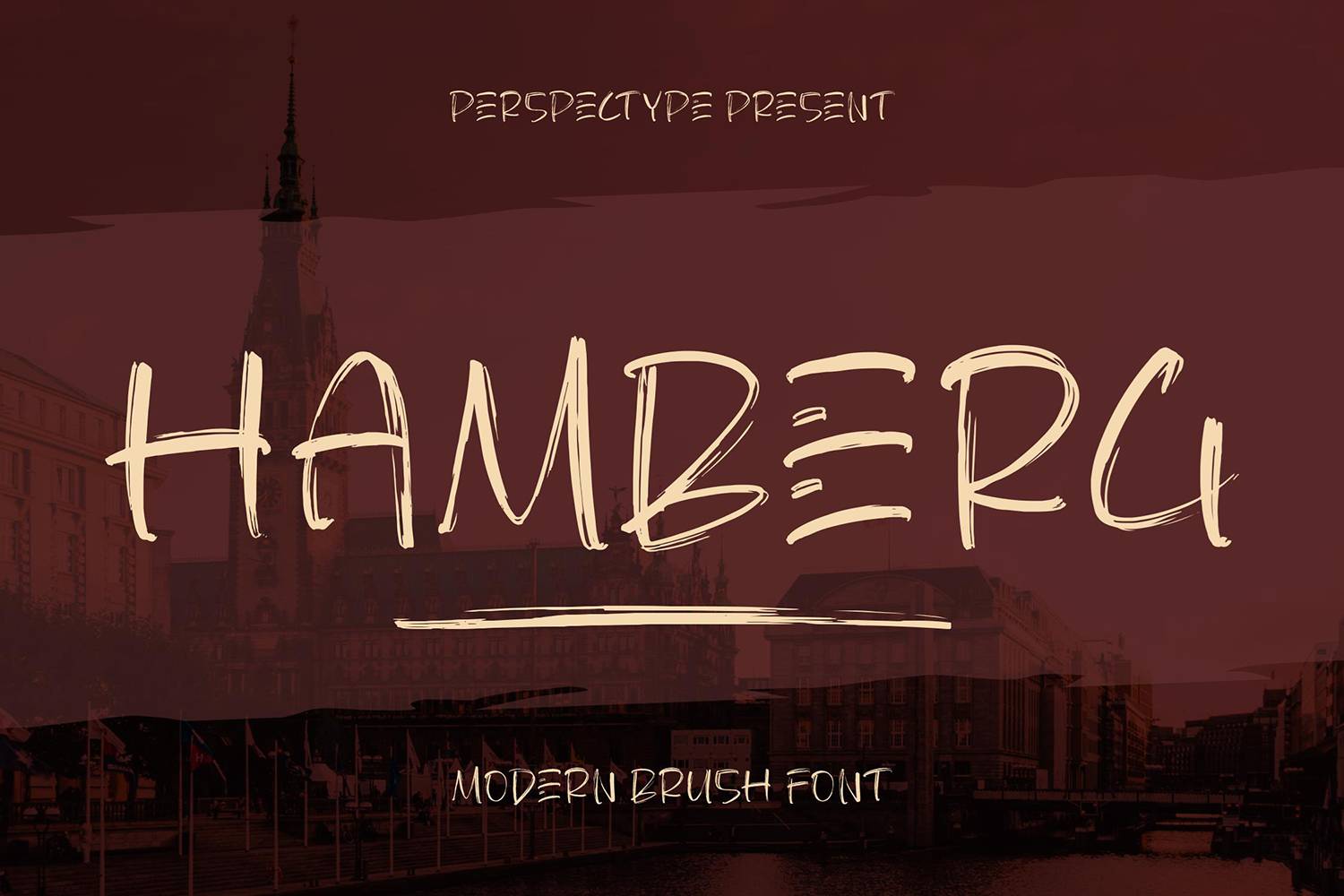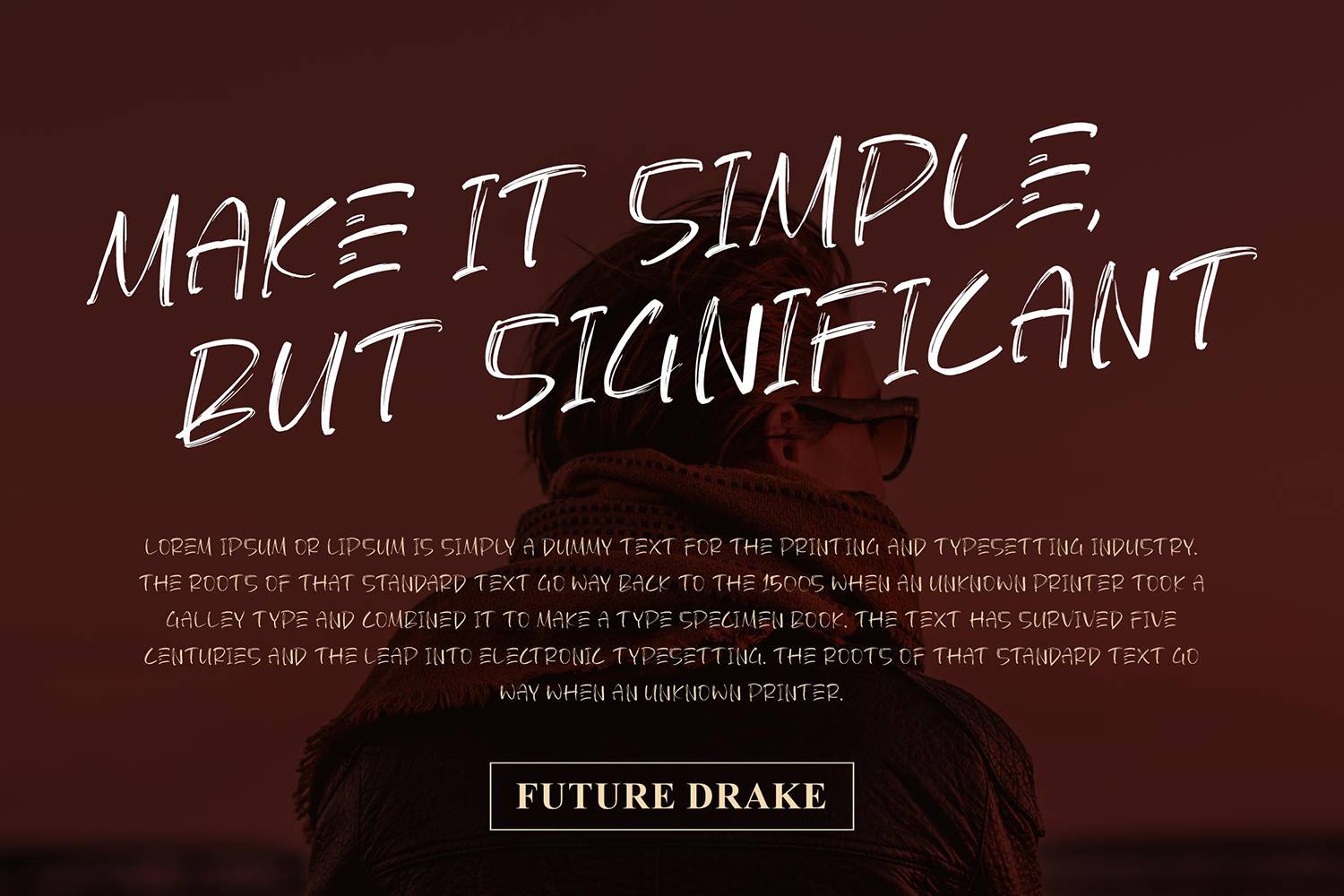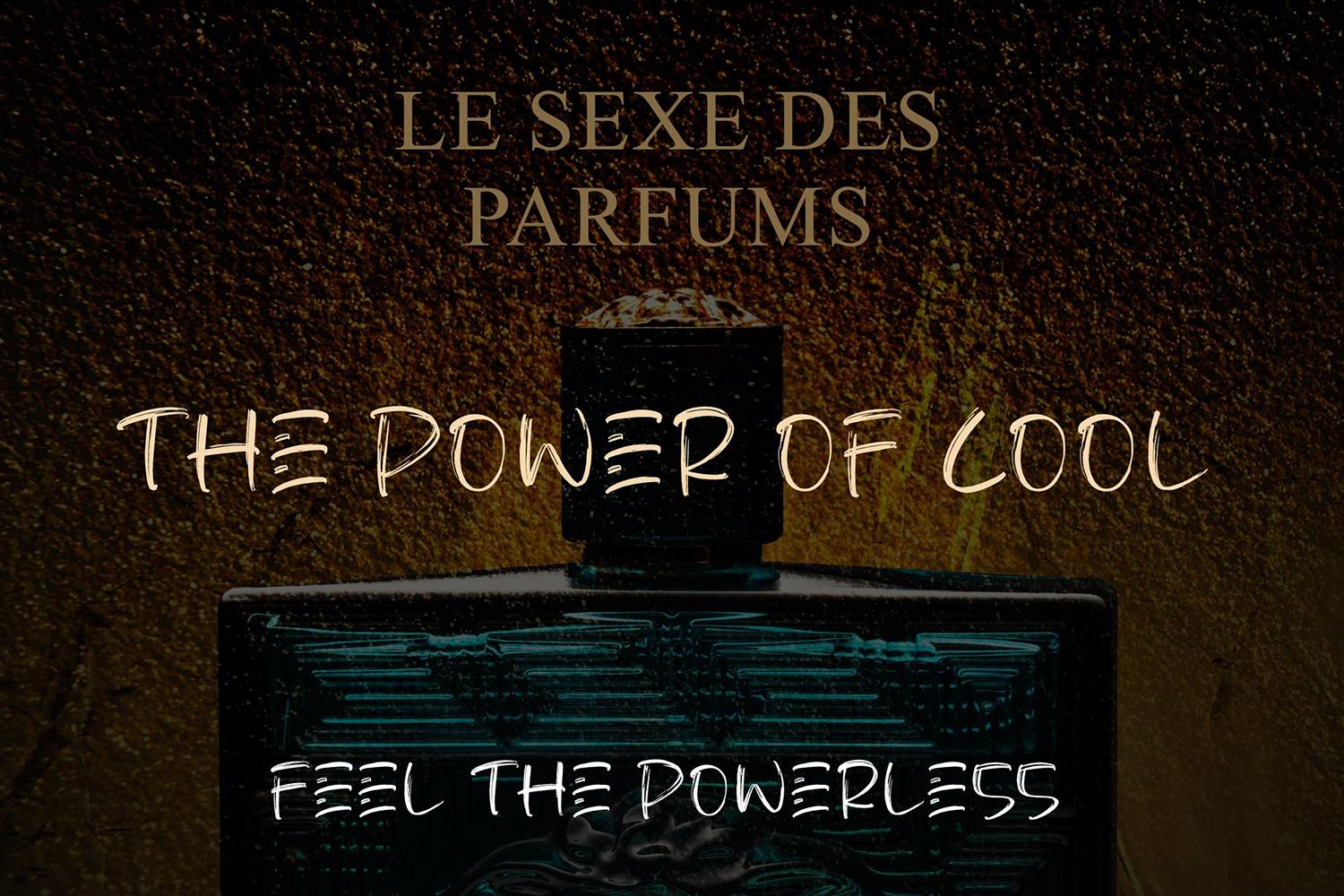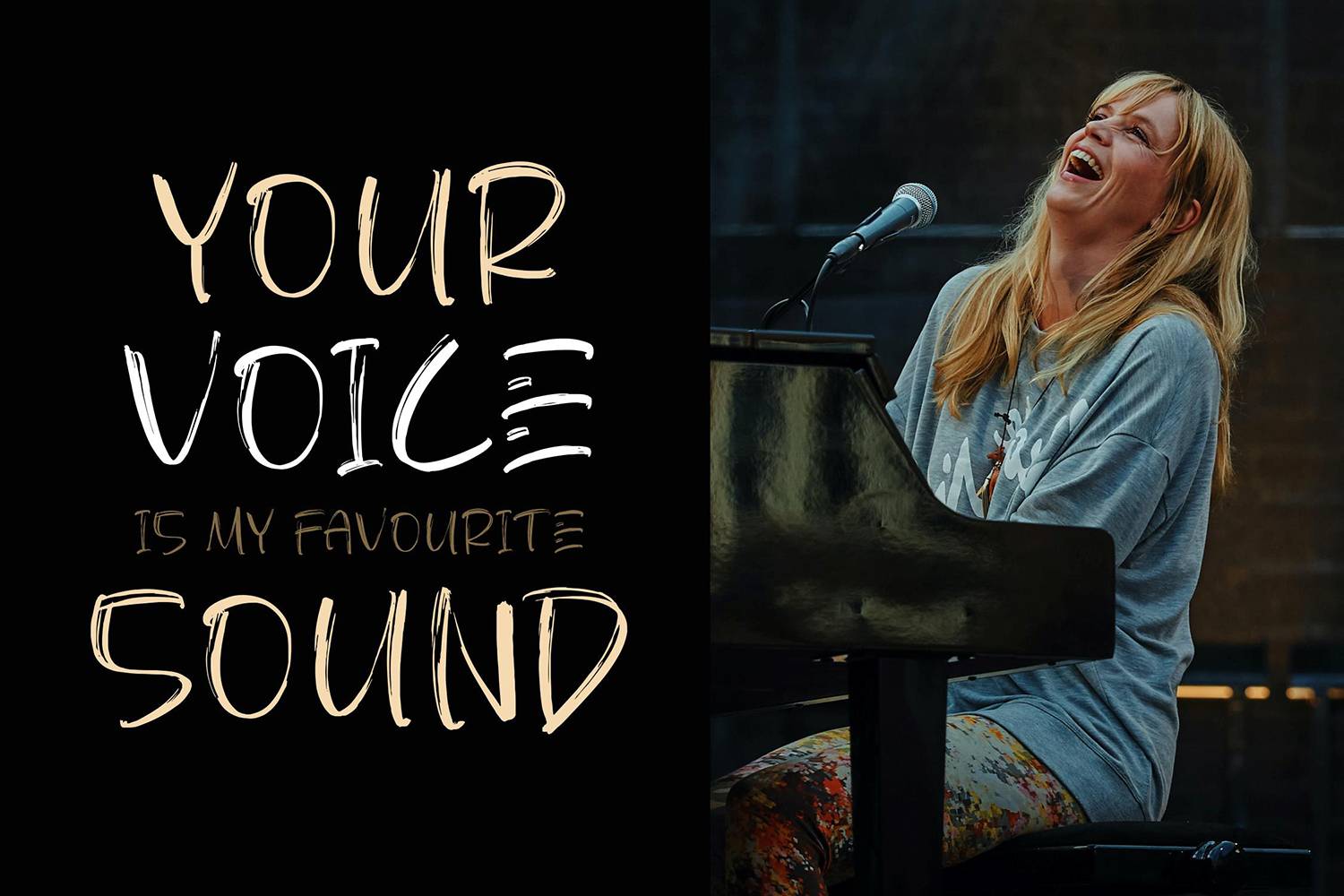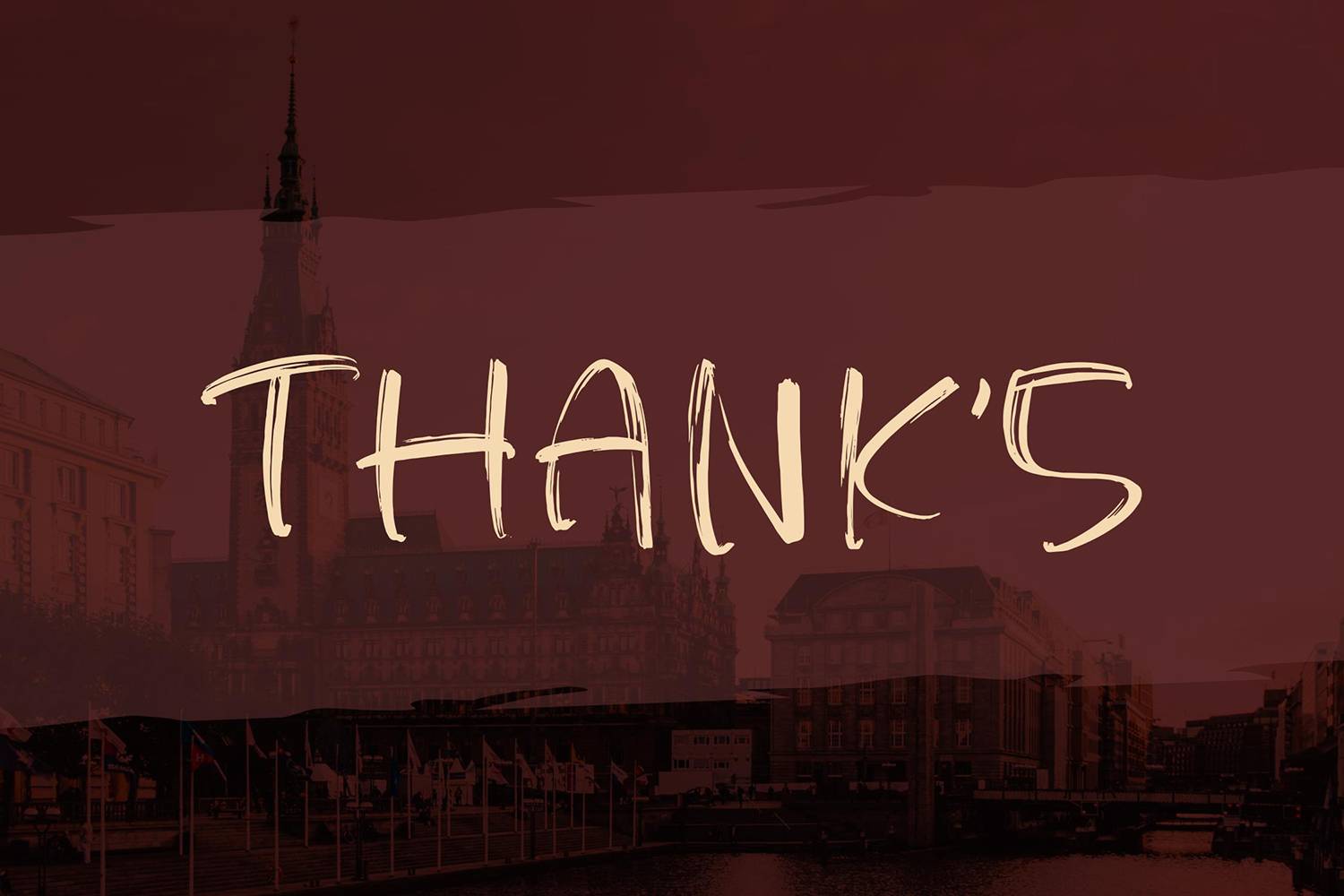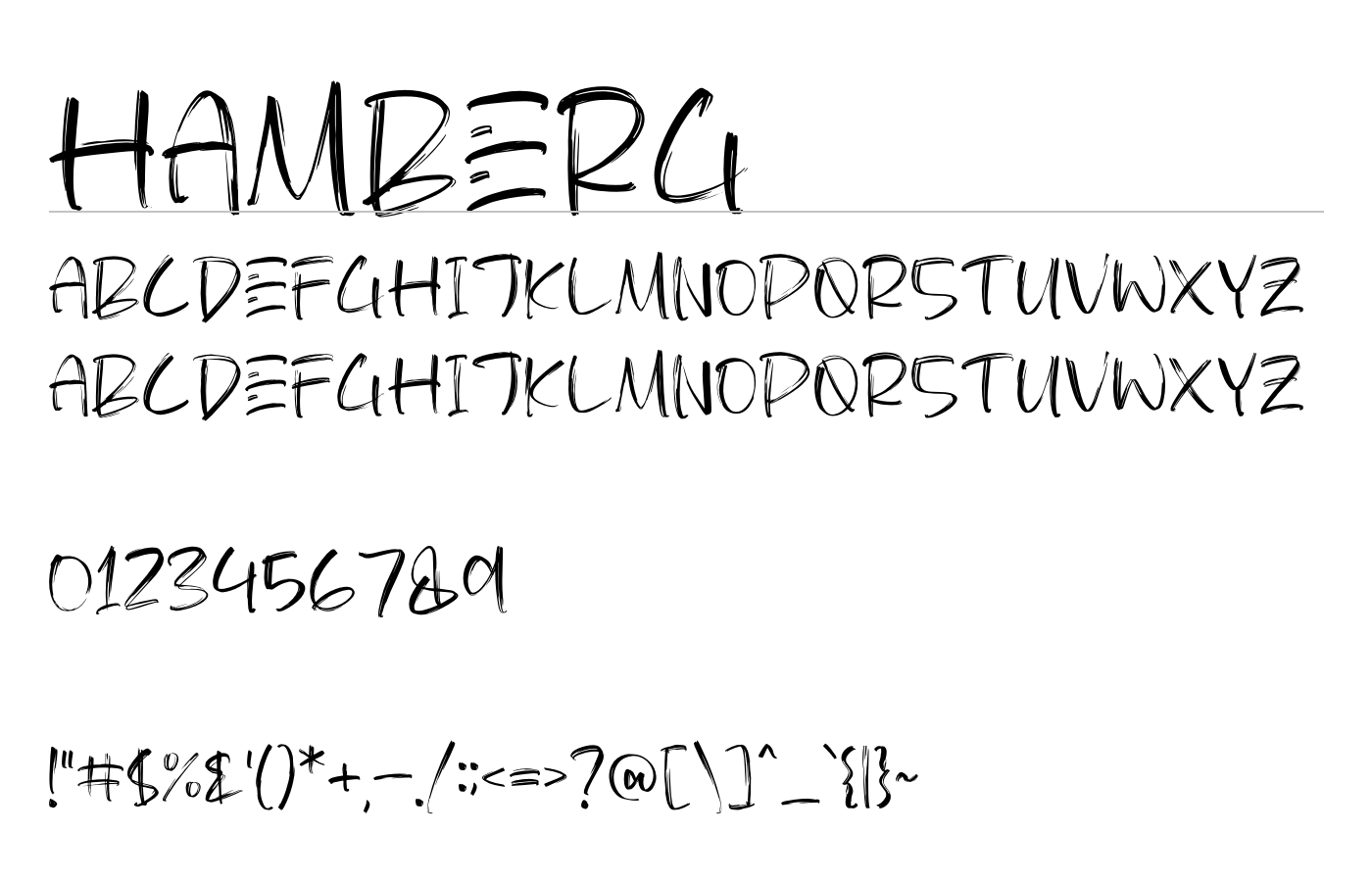
Hamberg is a playful and energetic handwritten sans serif font with a casual, brushstroke style that gives it a dynamic and lively character. Its irregular strokes and slightly rough edges create a raw, authentic feel, making it perfect for creative projects, informal branding, and eye-catching headlines that aim to convey personality and spontaneity. This font works well where a personal, artistic touch is desired, such as in posters, social media graphics, or product packaging.
Hamberg Font
About Hamberg Font